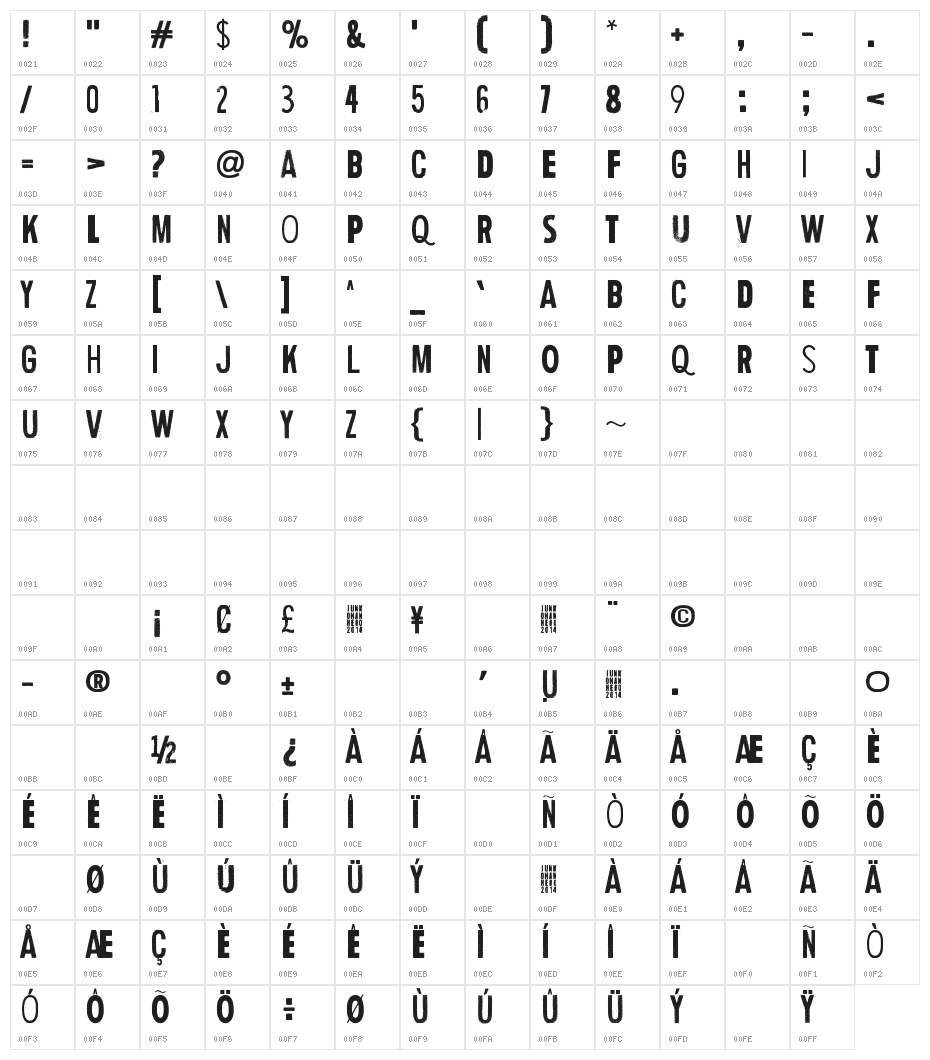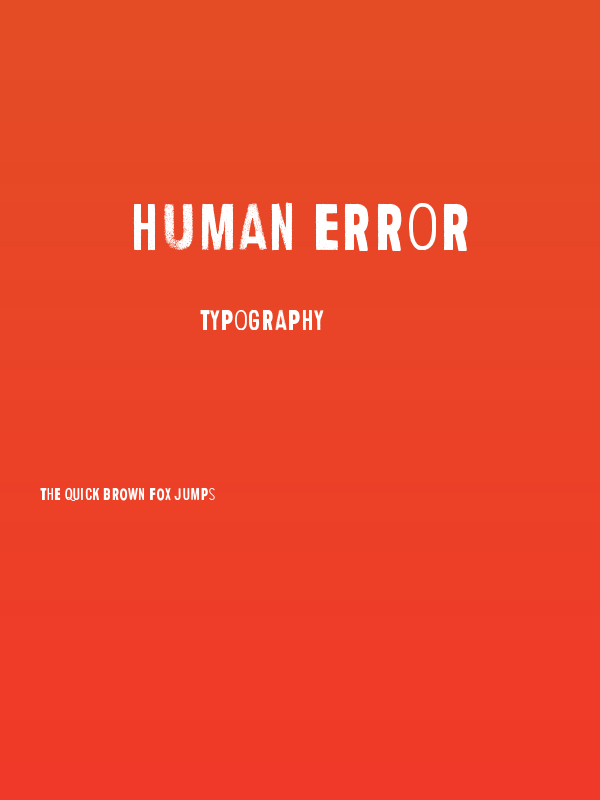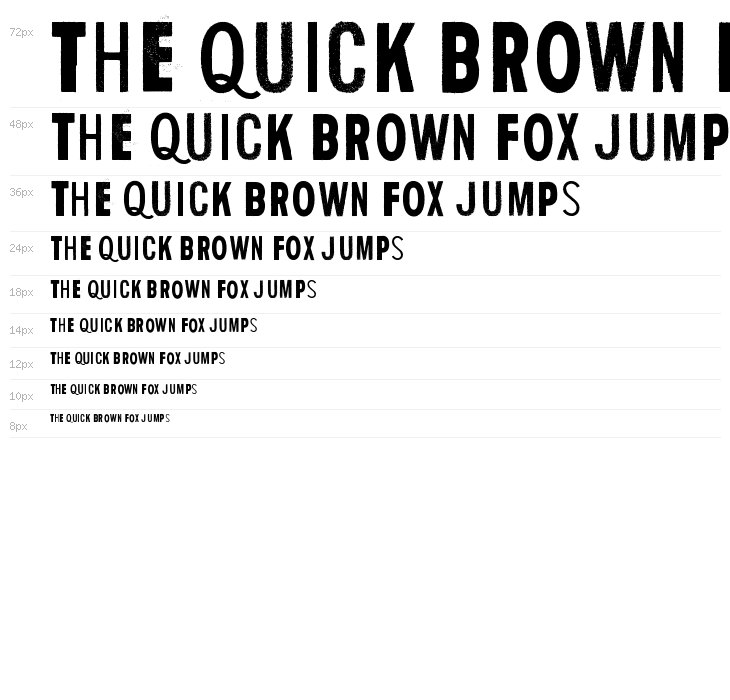
Human Error Font
Human Error Description
This font features a bold and distressed style, reminiscent of vintage typewriter or letterpress printing. The uppercase letters are prominent and have a slightly rough texture, giving them a worn, industrial look. The lowercase letters maintain the same distressed aesthetic, providing a cohesive appearance across the alphabet. Numbers and special characters follow the same design principles, ensuring consistency. The overall appearance is rugged and impactful, making it suitable for projects that require a strong, retro feel.
| Proposed Projects | Ideal for posters, album covers, branding for vintage-themed products, or any design requiring a bold, retro look. |